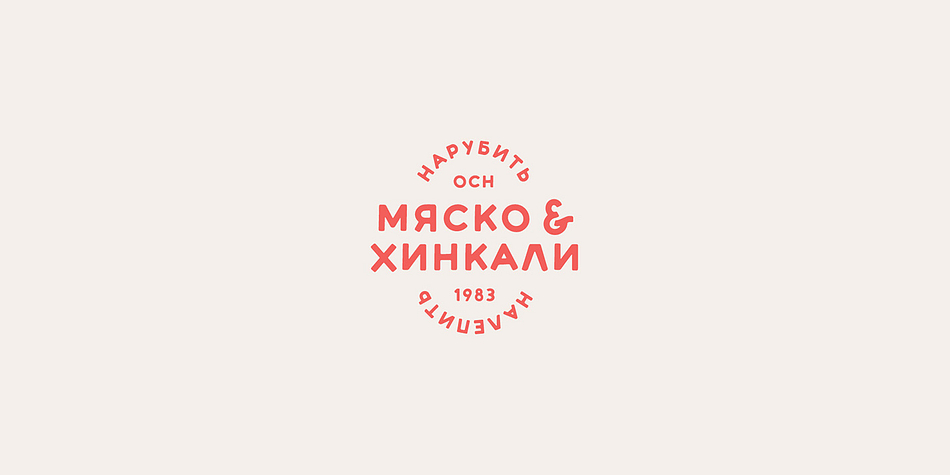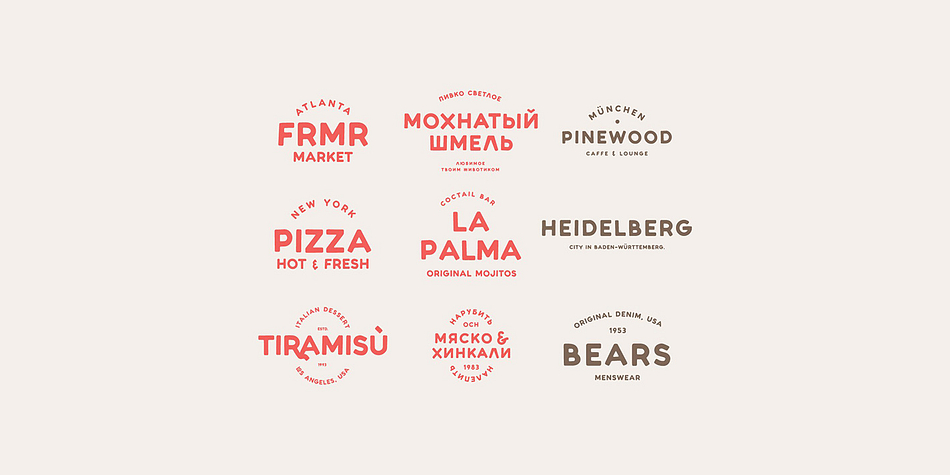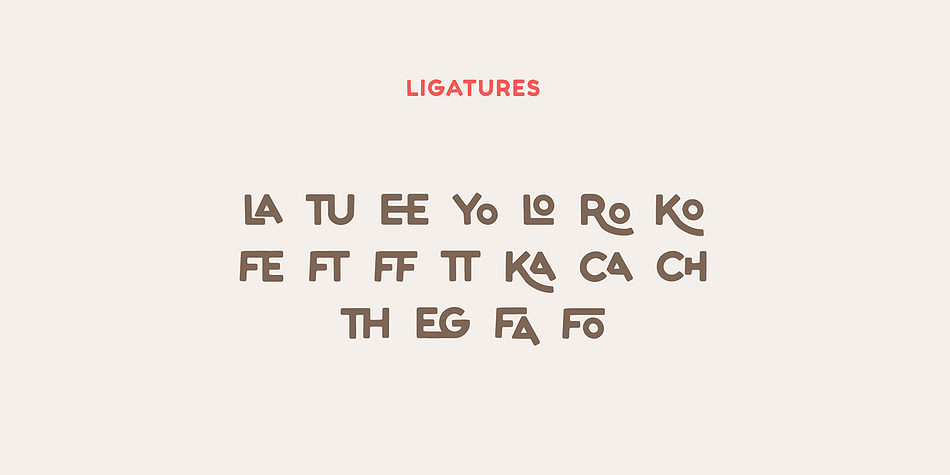
NEVADA
Designed by Dmitry Mashkin, Nevada is a display sans and retro font family published by ArtCoast.
Introducing the vintage font of your dreams: Nevada! This all-American retro display font was designed with old logos and classic typography in mind. Showcase your unique style with a heart-warming hand drawn font perfect for creative projects like packaging, wall art, greeting cards and branding. It’s also great for adding a personal touch to uplifting quotes, displaying cheerful messages on apparel or creating custom product tags that stand out from the crowd. Express yourself with Nevada – let it steal the show and wake up admiration in all those who behold your creation!
- Contextual alternates
- Ligatures
- Multilingual support
Foundry ArtCoast
Styles Display Sans, Retro
Designer Dmitry Mashkin